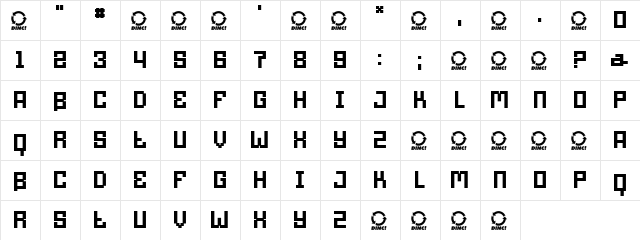
Robot.Com Regular Font Preview
Robot.Com Regular
Design Context for Robot.Com Typeface
Robot.Com is a composed and adaptable typeface that performs quietly and consistently across a wide range of design contexts.